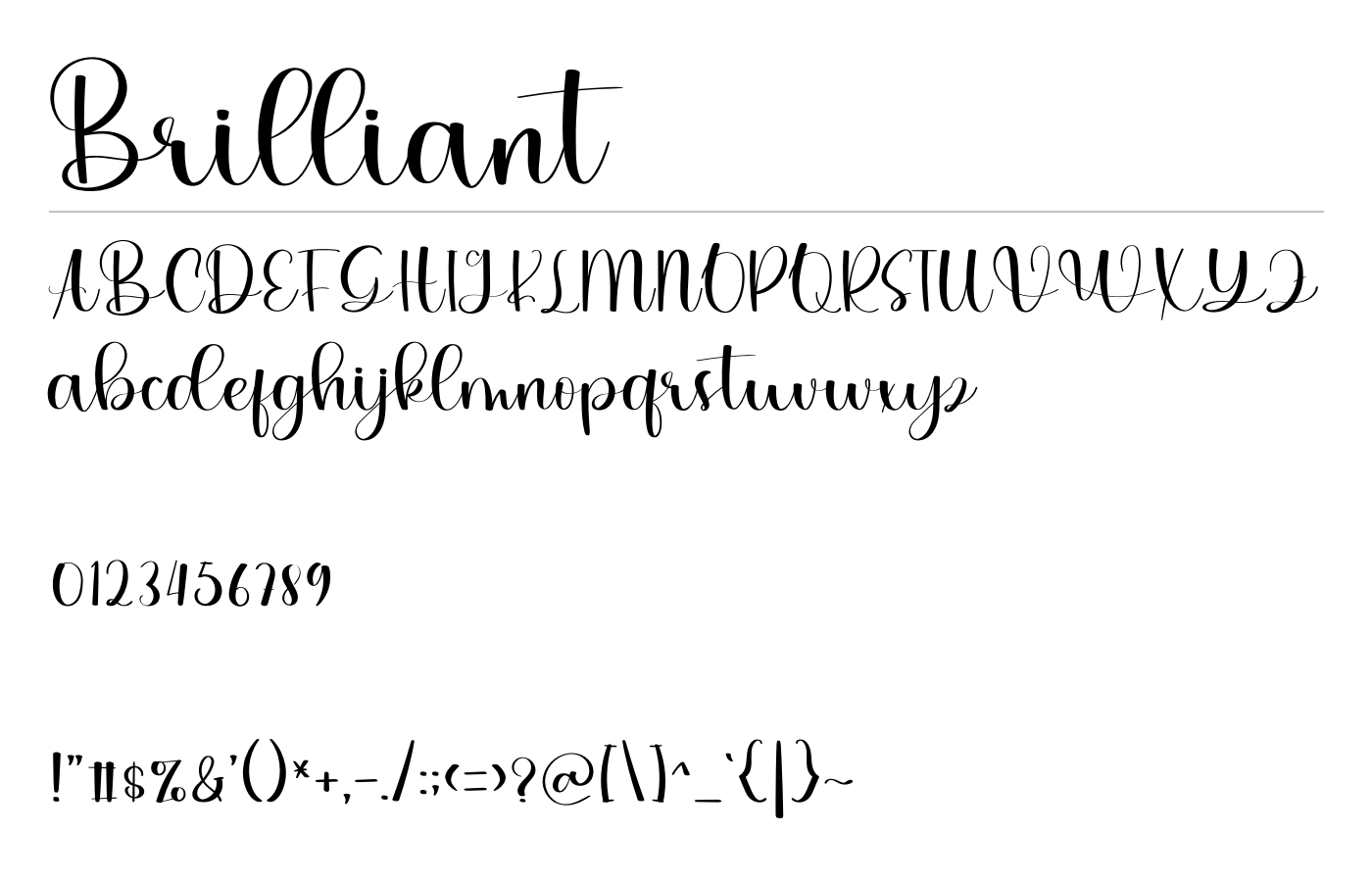
Brilliant Font is an elegant and playful script typeface with smooth, flowing strokes and a lively, hand-lettered feel. Its tall, narrow letterforms and varying stroke widths add a personalized charm, making it ideal for creative branding, invitations, and stylish headlines that want to convey warmth and sophistication. This font works beautifully in designs that seek a graceful yet approachable look.
Brilliant Font
About Brilliant Font